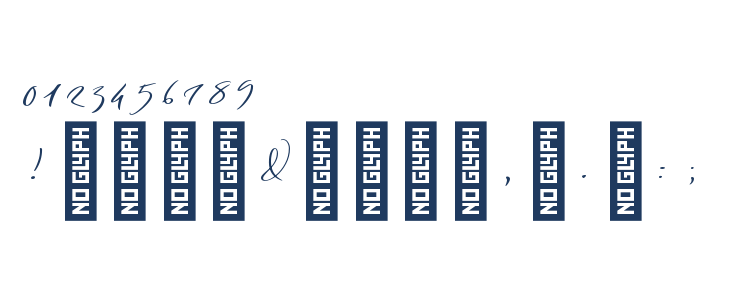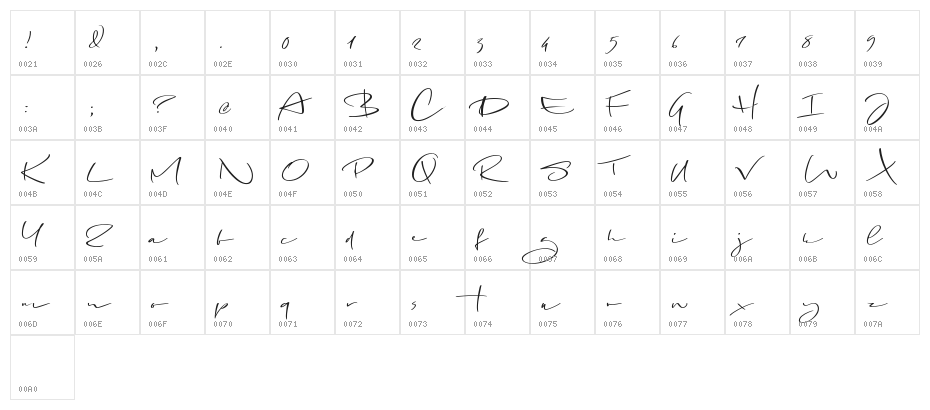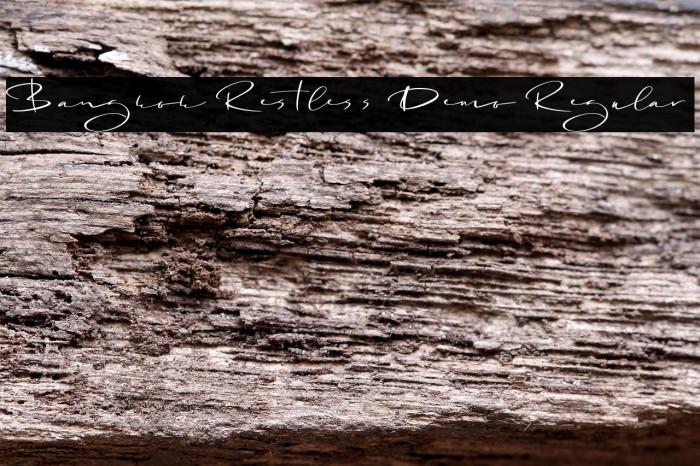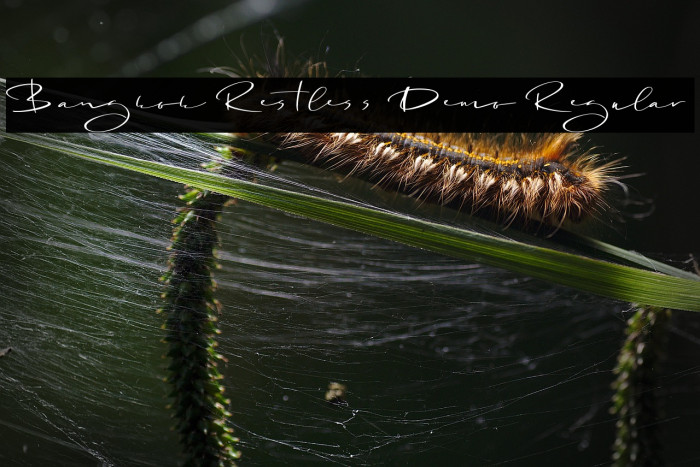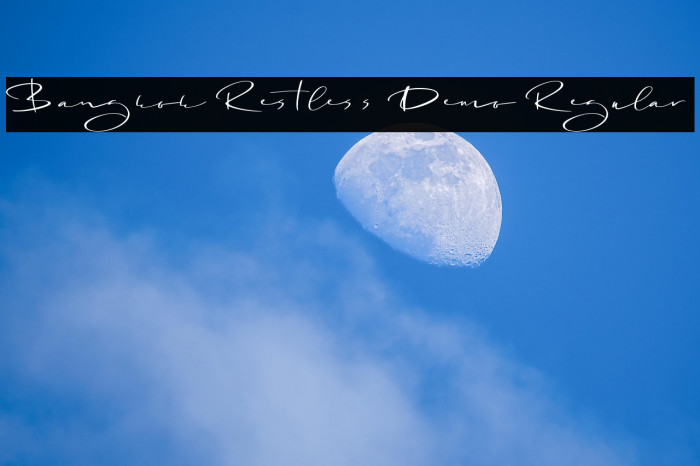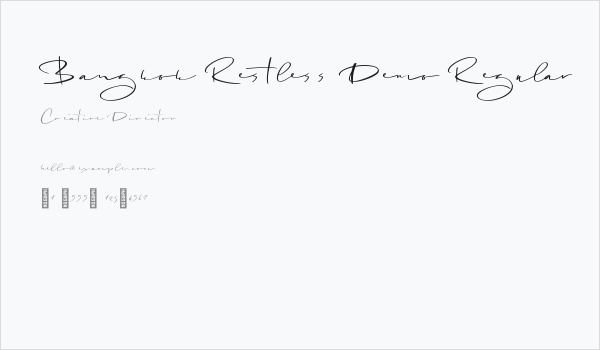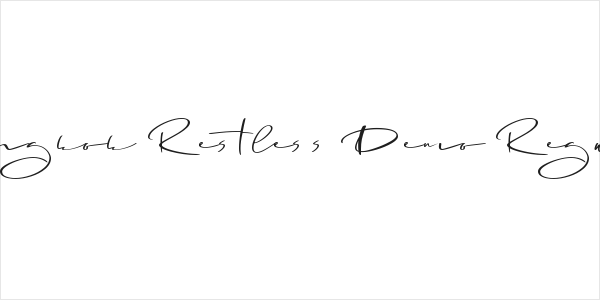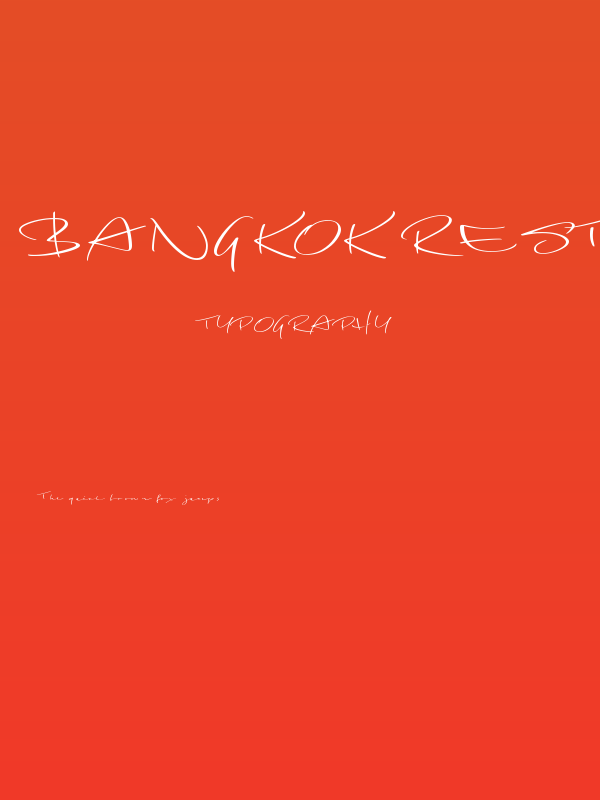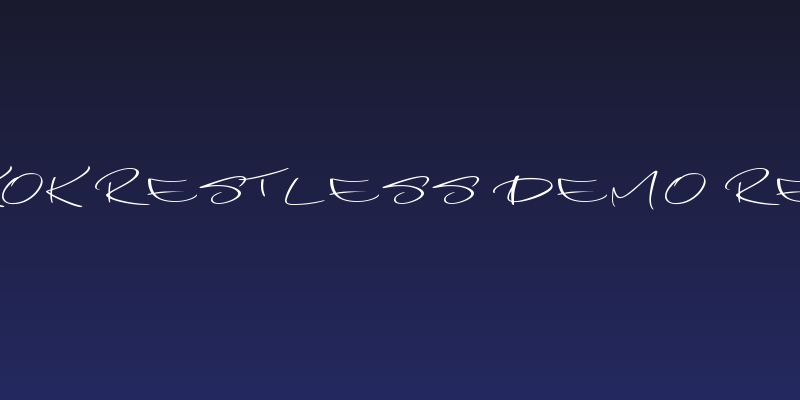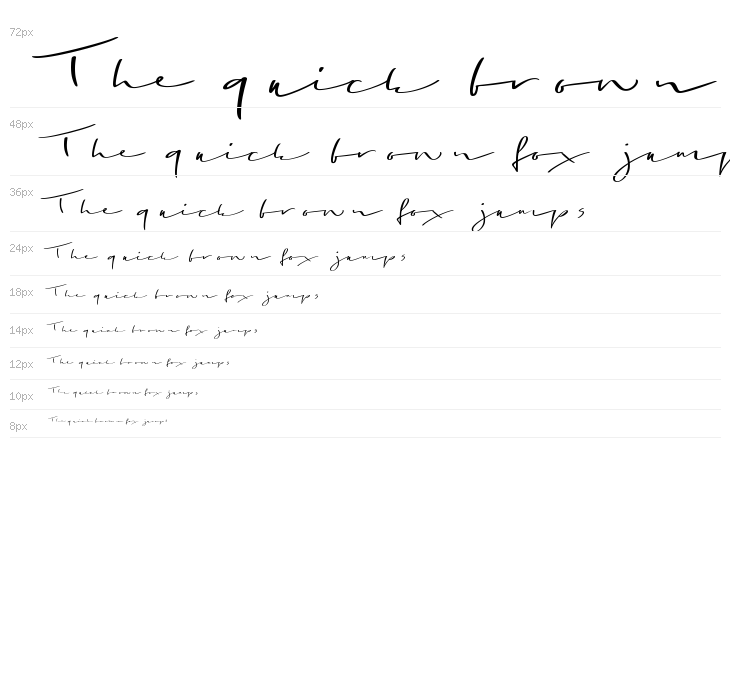
Bangkok Restless Demo Regular Font
Bangkok Restless Demo Regular Description
This font exudes a dynamic and energetic feel, characterized by its fluid and cursive strokes. The uppercase letters are bold and expressive, with a slight slant that adds to the overall movement of the typeface. The lowercase letters maintain a consistent flow, with some characters featuring unique loops and swashes that enhance its handwritten appeal. Numbers are elegantly styled, maintaining the same cursive quality as the letters. The special characters are thoughtfully designed to match the overall aesthetic, making this font suitable for creative and artistic projects.
| Proposed Projects | Ideal for wedding invitations, greeting cards, personal branding, and artistic posters. |